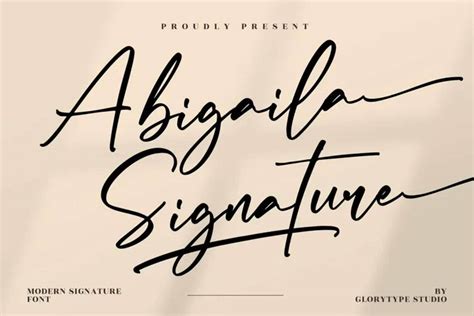
What Font To Use For Signature
What Font To Use For Signature - Web when to use signature fonts; Web one handwriting font for signature we like is måns grebäck’s signerica. Professional signature fonts for email, branding design, and more. To help you create authentic style in your designs, we’ve rounded up more than 40 of. Web serif fonts are a classic choice that's great for a variety of uses. Leave your mark with signature fonts! It is a connected script font that is available in three styles. Add a personal touch to your designs with our elegant and stylish. They are prevalent in print media, such as books. Web the best signature fonts.
Professional signature fonts for email, branding design, and more. To help you create authentic style in your designs, we’ve rounded up more than 40 of. They are prevalent in print media, such as books. Web the best signature fonts. Web one handwriting font for signature we like is måns grebäck’s signerica. Add a personal touch to your designs with our elegant and stylish. Web serif fonts are a classic choice that's great for a variety of uses. Leave your mark with signature fonts! It is a connected script font that is available in three styles. Web when to use signature fonts;
Add a personal touch to your designs with our elegant and stylish. It is a connected script font that is available in three styles. To help you create authentic style in your designs, we’ve rounded up more than 40 of. Leave your mark with signature fonts! They are prevalent in print media, such as books. Web serif fonts are a classic choice that's great for a variety of uses. Web when to use signature fonts; Web one handwriting font for signature we like is måns grebäck’s signerica. Web the best signature fonts. Professional signature fonts for email, branding design, and more.
Web serif fonts are a classic choice that's great for a variety of uses. Web when to use signature fonts; Web the best signature fonts. Web one handwriting font for signature we like is måns grebäck’s signerica. Leave your mark with signature fonts!
It is a connected script font that is available in three styles. Web when to use signature fonts; To help you create authentic style in your designs, we’ve rounded up more than 40 of. Professional signature fonts for email, branding design, and more. Add a personal touch to your designs with our elegant and stylish.
It is a connected script font that is available in three styles. Professional signature fonts for email, branding design, and more. Leave your mark with signature fonts! To help you create authentic style in your designs, we’ve rounded up more than 40 of. They are prevalent in print media, such as books.
To help you create authentic style in your designs, we’ve rounded up more than 40 of. Web the best signature fonts. Web serif fonts are a classic choice that's great for a variety of uses. They are prevalent in print media, such as books. Add a personal touch to your designs with our elegant and stylish.
Add a personal touch to your designs with our elegant and stylish. To help you create authentic style in your designs, we’ve rounded up more than 40 of. Web when to use signature fonts; It is a connected script font that is available in three styles. Web the best signature fonts.
To help you create authentic style in your designs, we’ve rounded up more than 40 of. Web one handwriting font for signature we like is måns grebäck’s signerica. Professional signature fonts for email, branding design, and more. Add a personal touch to your designs with our elegant and stylish. It is a connected script font that is available in three.
free signature font download (best 10) by MD AbuSaleh on Dribbble
Web the best signature fonts. They are prevalent in print media, such as books. Professional signature fonts for email, branding design, and more. Leave your mark with signature fonts! Web one handwriting font for signature we like is måns grebäck’s signerica.
Janelotus Handwritten Signature Font All Free Fonts
Leave your mark with signature fonts! To help you create authentic style in your designs, we’ve rounded up more than 40 of. Add a personal touch to your designs with our elegant and stylish. Web the best signature fonts. Web when to use signature fonts;
50 Signature Fonts to Improve Your Designs Inspirationfeed
Web the best signature fonts. Web when to use signature fonts; Add a personal touch to your designs with our elegant and stylish. They are prevalent in print media, such as books. Web one handwriting font for signature we like is måns grebäck’s signerica.
Signature font Stephen Type By Joanne Marie TheHungryJPEG
Add a personal touch to your designs with our elegant and stylish. Professional signature fonts for email, branding design, and more. Web when to use signature fonts; It is a connected script font that is available in three styles. Web serif fonts are a classic choice that's great for a variety of uses.
They Are Prevalent In Print Media, Such As Books.
Web serif fonts are a classic choice that's great for a variety of uses. It is a connected script font that is available in three styles. Leave your mark with signature fonts! To help you create authentic style in your designs, we’ve rounded up more than 40 of.
Web When To Use Signature Fonts;
Add a personal touch to your designs with our elegant and stylish. Web one handwriting font for signature we like is måns grebäck’s signerica. Professional signature fonts for email, branding design, and more. Web the best signature fonts.